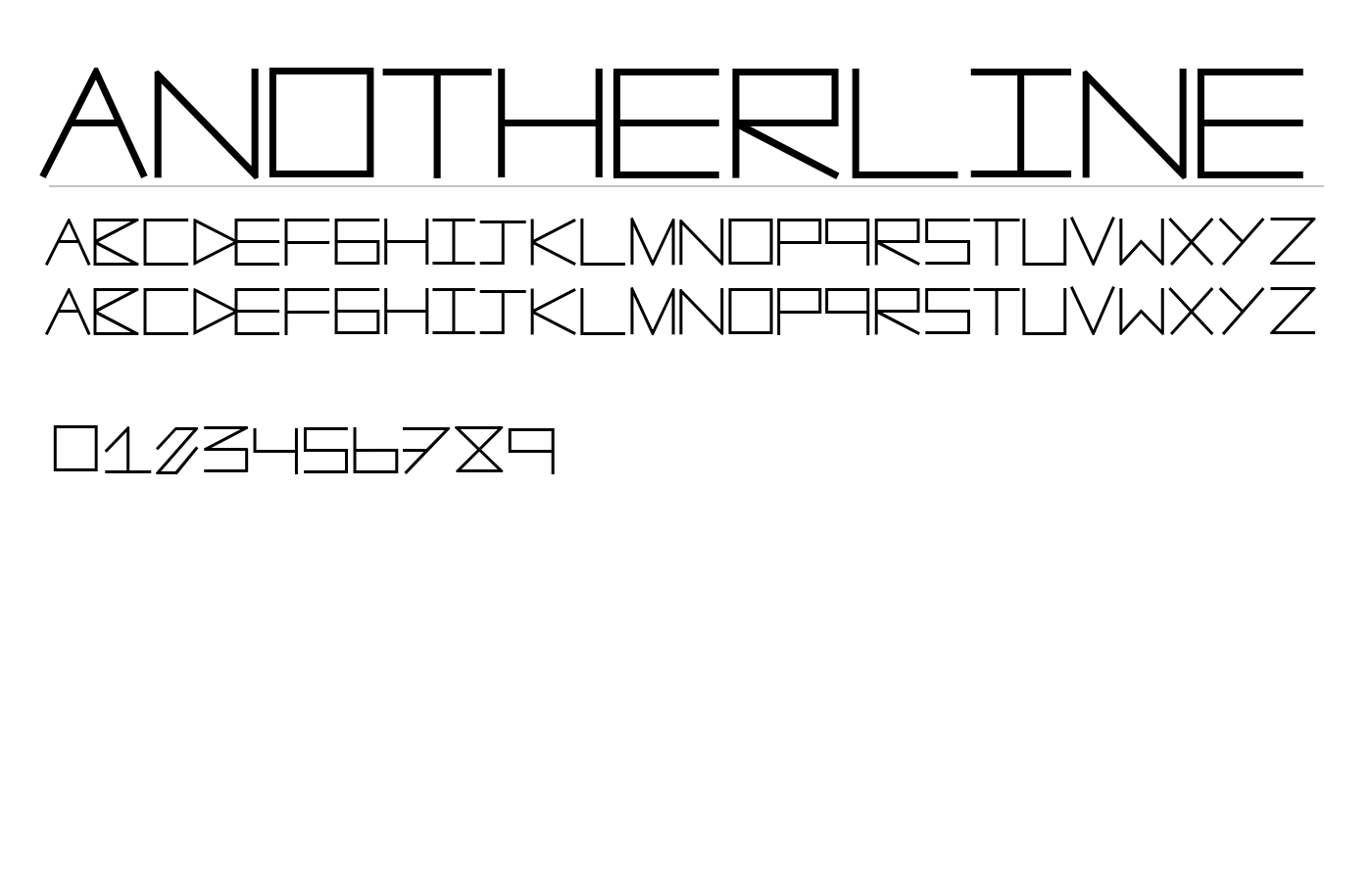
AnotherLine Font is a modern, geometric sans serif typeface characterized by its extremely thin strokes and open, airy construction. Its narrow letterforms and precise, angular lines give it a technical and futuristic feel, making it ideal for contemporary branding, headlines, and creative projects that seek a sleek, minimalist aesthetic. This font’s unique shapes and tight spacing create a distinctive look suited for fashion, technology, and editorial designs where a clean yet avant-garde style is desired.
AnotherLine Font
About AnotherLine Font